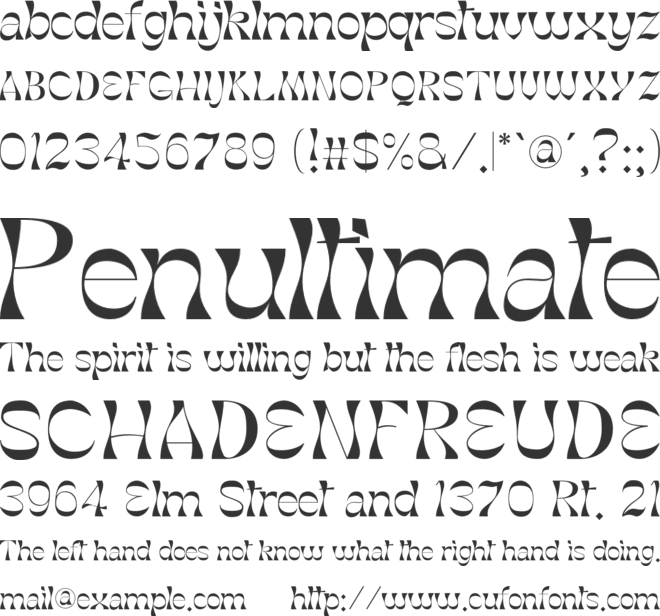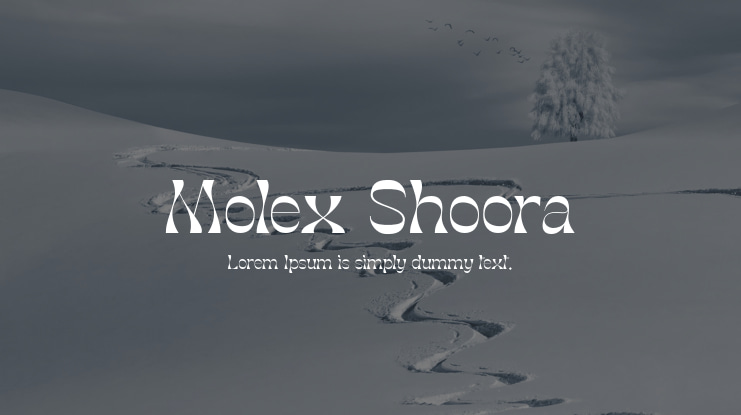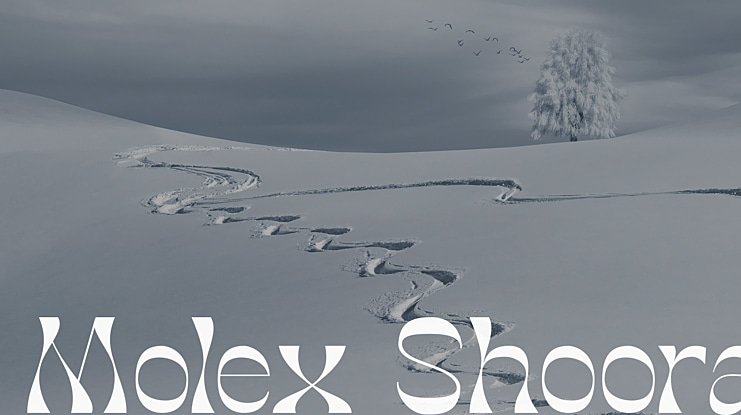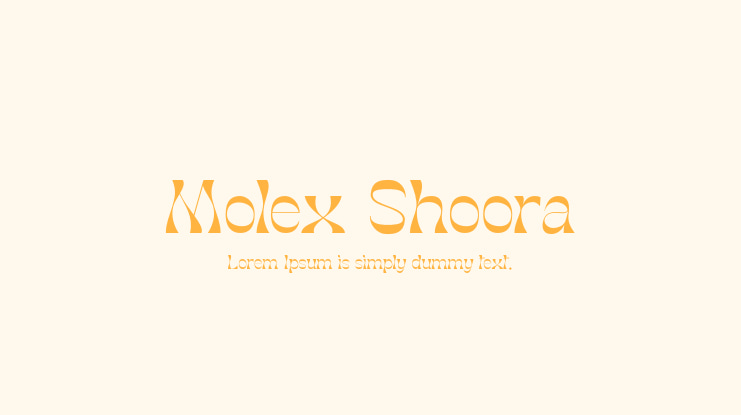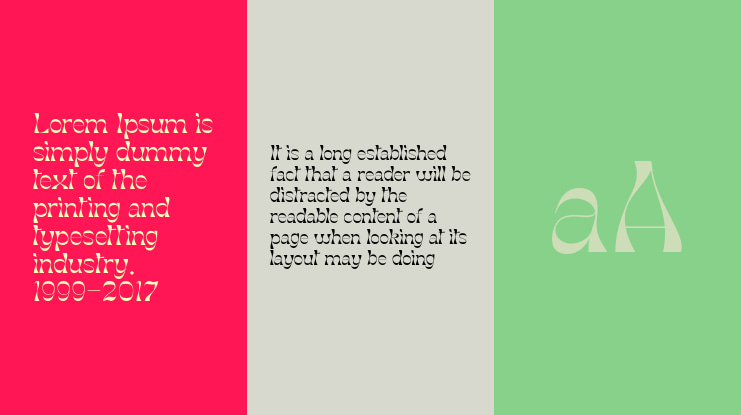
Molex Shoora Font
Laire Banyu Sandi Pawenang
Molex Shoora is a typeface that is inspired by retro-style writing. We make each element with a unique style, made on the top and bottom edges thick and in the middle it starts to thin which is consistent with each letter